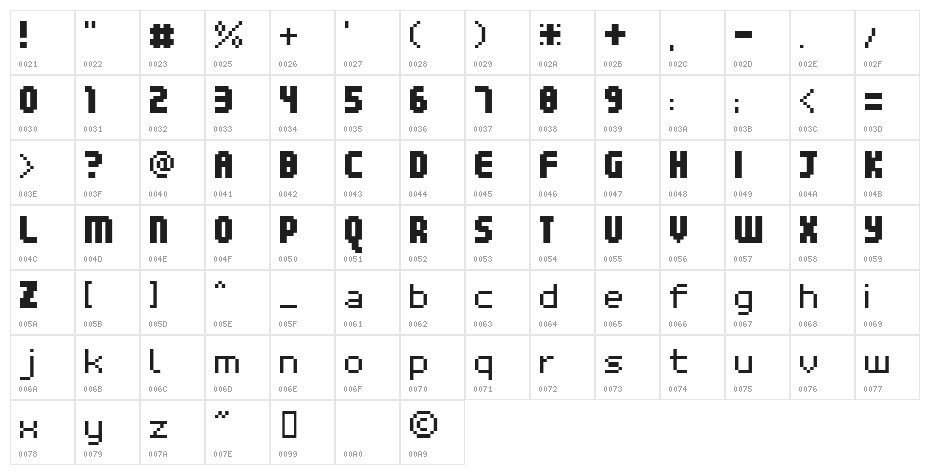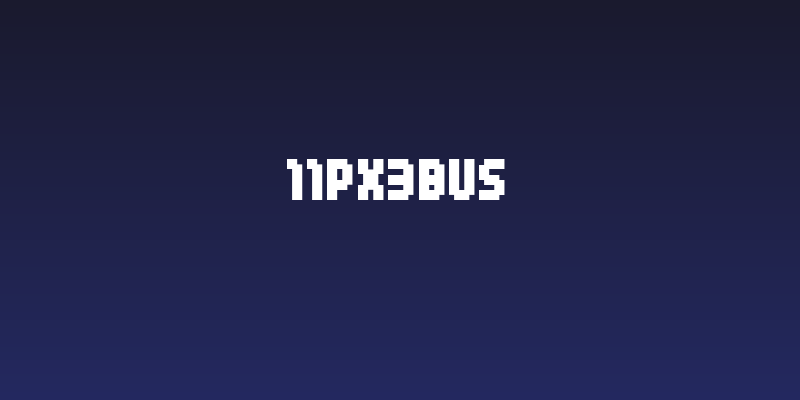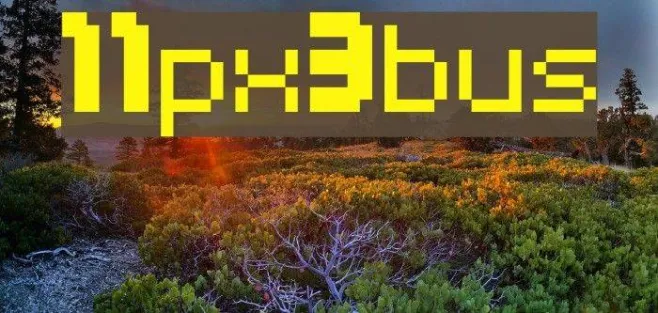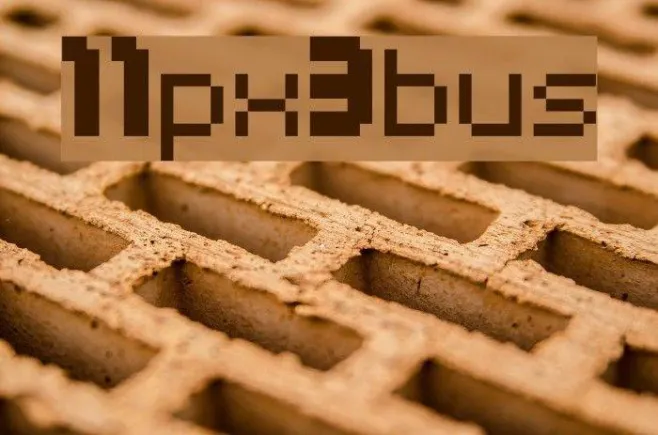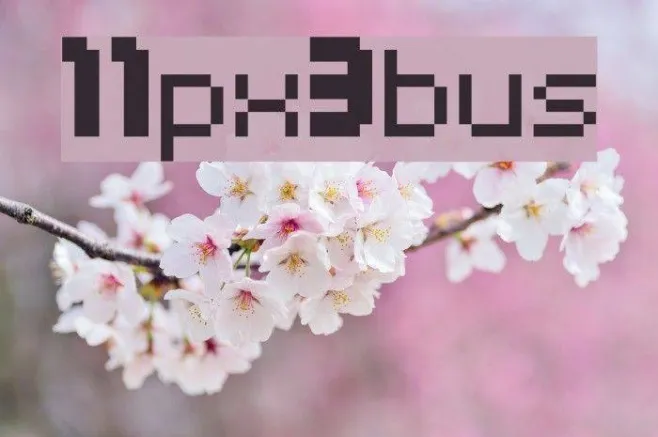
11px3bus Font
11px3bus Description
This font features a bold, pixelated design reminiscent of early digital displays and retro video games. Each character is constructed with a blocky, grid-like structure, giving it a distinctly digital and geometric appearance. The uppercase and lowercase letters maintain a consistent style, with sharp edges and uniform line thickness. The numerals and special characters follow the same aesthetic, ensuring a cohesive look across all glyphs. This font's nostalgic charm and clear readability make it suitable for projects that aim to evoke a sense of vintage digital technology.
11PX3BUS UPPERCASE
11PX3BUS LOWERCASE
11PX3BUS OTHER CHARS
| Use Case | Headlines, Logos, Display text |
| Proposed Projects | Ideal for video game design, retro-themed graphics, digital art, and tech-related branding. |